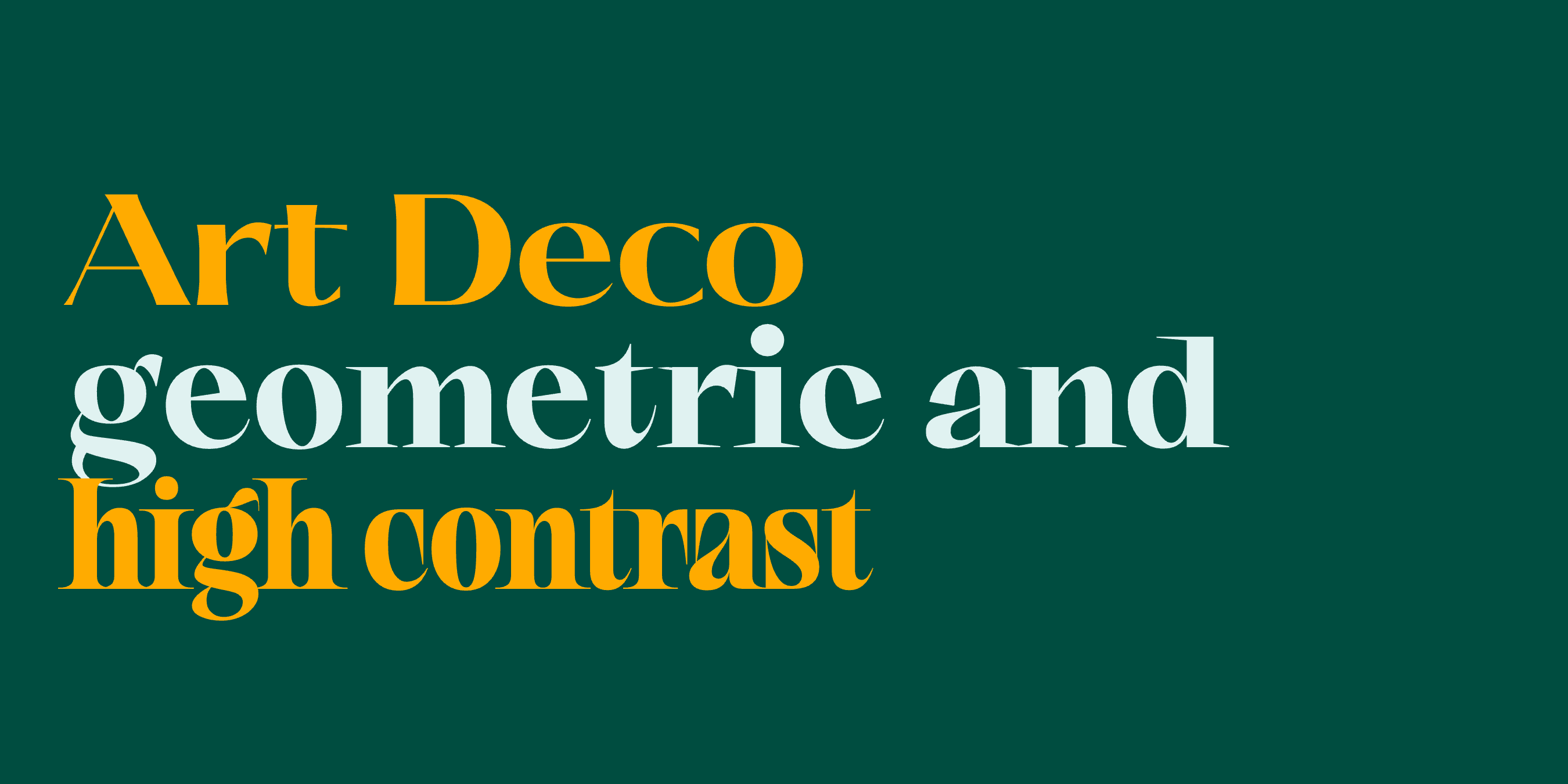
Art Deco Fonts: 10 Fonts in the 1920s and 30s Style
Where Art Deco type comes from, from the 1925 Paris exhibition to Cassandre and Broadway, how to recognize it, and ten Art Deco fonts to try.
Gatsby, Systemized. set in Quin, an Art Deco font
Art Deco fonts have high contrast, tall and narrow capitals, and geometric shapes. The style comes from the 1920s and 30s, when it was used on posters, hotel signs, cinemas and packaging. This guide covers where the style comes from, how to recognize it, and ten fonts in that style, each with nine weights and a variable font.
Where Art Deco Type Comes From
In 1925, Paris hosted the Exposition internationale des arts décoratifs et industriels modernes, a large exhibition of decorative and industrial design. The name Art Deco came later, in the 1960s, as a short form of that title. The style it describes ran through the 1920s and 30s, in architecture, furniture, fashion and graphic design.
Type was a big part of it. The French poster artist Cassandre drew the typeface Bifur in 1929, with letters reduced to a few thick strokes and thin lines, and Peignot in 1937, which mixes capital and lowercase forms. In the United States, Morris Fuller Benton drew Broadway for American Type Founders in the late 1920s, with heavy strokes next to hairlines. Futura, from 1927, came from the same years and is often used for Art Deco designs today.
How to Recognize an Art Deco Font
• High contrast between thick and thin strokes, or strokes of one weight with no contrast at all.
• Tall, narrow capitals.
• Crossbars set unusually low or high, for example on A, E and H.
• Geometric shapes: a round O, straight lines, pointed tips.
• Decorative details like inline strokes, gaps in the letters, or ligatures that join two letters.
10 Art Deco Fonts
01
Quin, a sans with low crossbars
Quin font, name and sample letters set in Quin
Quin is the closest to 1920s lettering in our catalog. The strokes have one weight, the capitals are narrow, and the crossbars on letters like A, E and H sit lower than usual. The S and Y have unusual shapes. For restaurants, bars and logos with a 1920s look.
02
Saltz, a condensed serif with an Art Deco set
Saltz font, name and sample letters set in Saltz
Saltz is a narrow serif with high contrast and sharp terminals. Its stylistic set ss02 lowers the crossbars on letters like E and F, a typical Art Deco detail. For fashion, beauty and magazine headlines.
03
Aezra, a narrow serif with long terminals
Aezra font, name and sample letters set in Aezra
Aezra has tall, narrow capitals, high contrast and long, tapering terminals, like the lettering on 1920s posters and book covers. Ligatures such as ST and RA join letters into one shape. For book covers, film titles and theater posters.
04
Mirya, a soft condensed serif
Mirya font, name and sample letters set in Mirya
Mirya is condensed, with high contrast and ball terminals. The capital ligatures CA, LL and LO join two letters into one shape, a common detail in Art Deco signs. For cafés, bakeries and invitations.
05
Rozi, a high-contrast serif with sharp serifs
Rozi font, name and sample letters set in Rozi
Rozi has very thin hairlines next to heavy stems, and long, sharp serifs. The Z and R have long diagonal strokes. For premium branding and editorial headlines.
06
Pout, a reverse-contrast sans
Pout font, name and sample letters set in Pout
Pout turns contrast around: the horizontal strokes are thicker than the vertical ones. The letters are built from circles and straight lines, which gives it the look of 1920s and 30s display lettering. For bars, beauty brands and posters.
07
Chez, a rounded font with high contrast
Chez font, name and sample letters set in Chez
Chez has strong contrast between thick and thin strokes, with round stems and ball terminals. It is the softest font in this list. For beauty, fashion and food packaging.
08
Ques, a wide font with flared stems
Ques font, name and sample letters set in Ques
Ques is wide, with high contrast and stems that flare out at the ends. Wide, high-contrast capitals were common in Art Deco advertising. For beauty, fashion and hotel branding. It also has an italic.
09
Scal, a geometric sans
Scal font, name and sample letters set in Scal
Scal is close to Futura, which came out in 1927, in the middle of the Art Deco years. It has a round o and a, and pointed tips on the A, M, N, V and W. For logos, labels and text.
10
Apex, a sans with pointed tips
Apex font, name and sample letters set in Apex
Apex has sharp points on A, K, M, N, W and Z and a round o, a mix often seen in Art Deco signs and posters. Alternate letters add more pointed forms. For logos and headlines that should look precise.
Where Art Deco Fonts Work
Art Deco type is used most for hotels, cocktail bars, restaurants, theaters and cinemas, and for packaging of chocolate, perfume and spirits. It also works for wedding and event invitations with a 1920s theme. Use the Art Deco font for the name or the headline, and a simple sans or serif for the rest of the text. Gold or brass on black or dark green is a common color choice from the period.